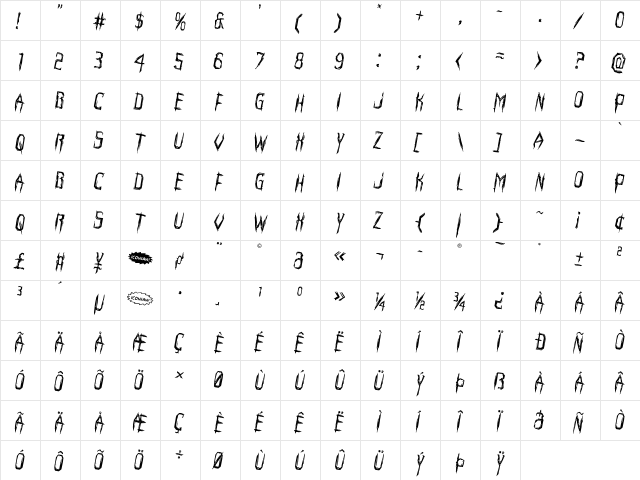
Horroroid Rotated 2 Regular
Design Context for Horroroid Rotated 2 Typeface
Horroroid Rotated 2 leans into the macabre with letterforms designed to disturb and intrigue in equal measure.
Ideal for Halloween projects, horror film titles, haunted house signage, and dark editorial design.
Font Pairing: Pair with a clean neutral sans-serif for body copy to let Horroroid Rotated 2's character lead without overwhelming the composition.
Pro Tip: Horroroid Rotated 2 works best as a headline or focal element. Pair it against plain, neutral body text to amplify the contrast.